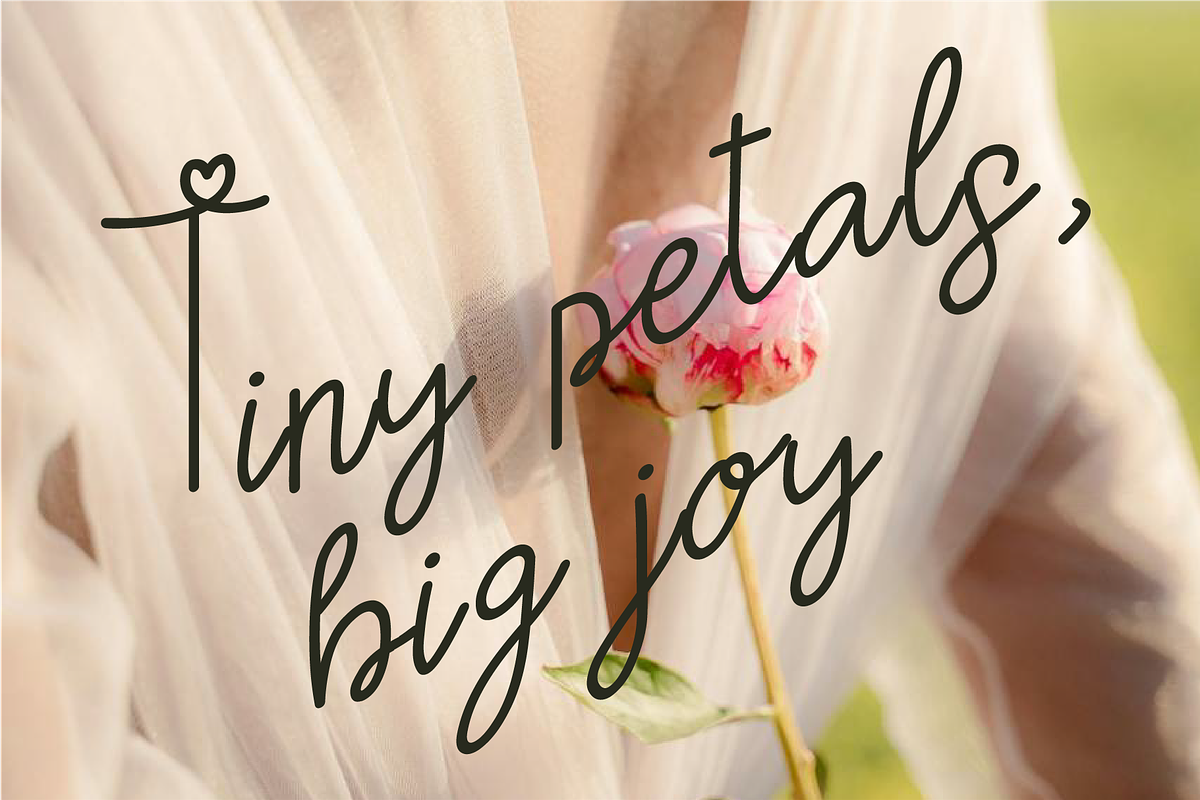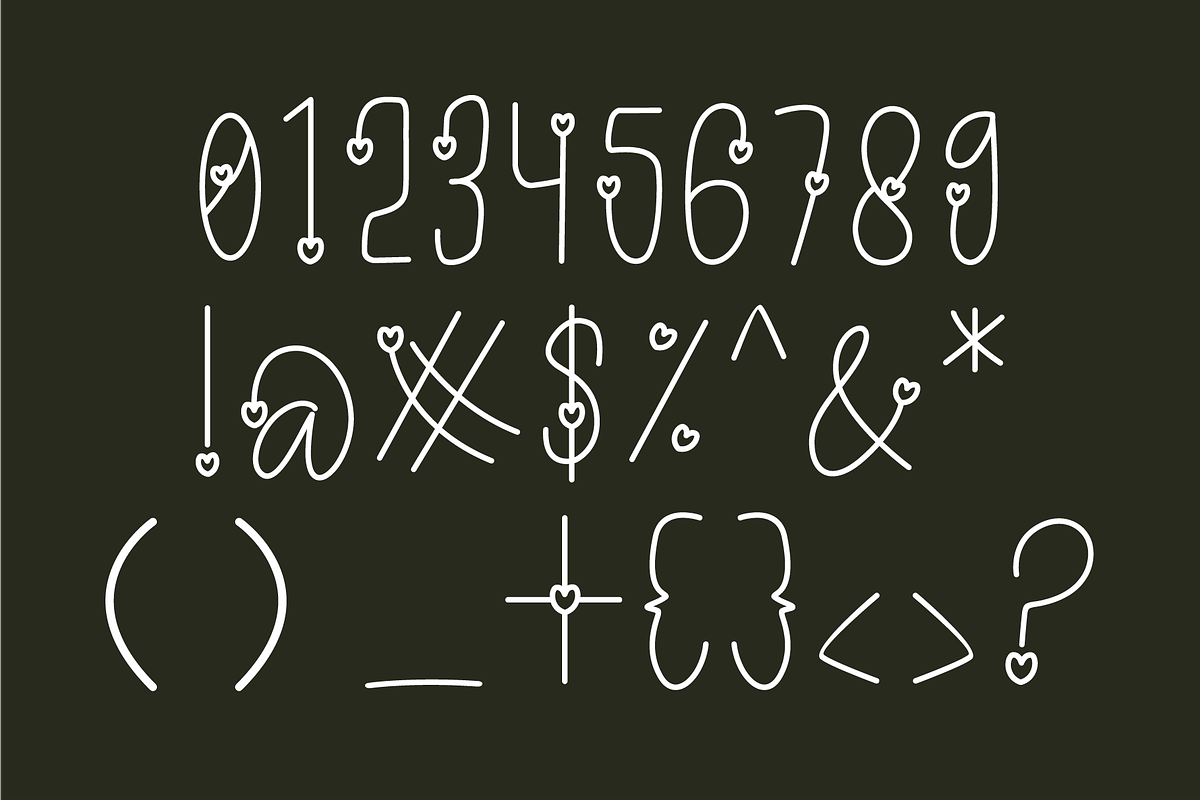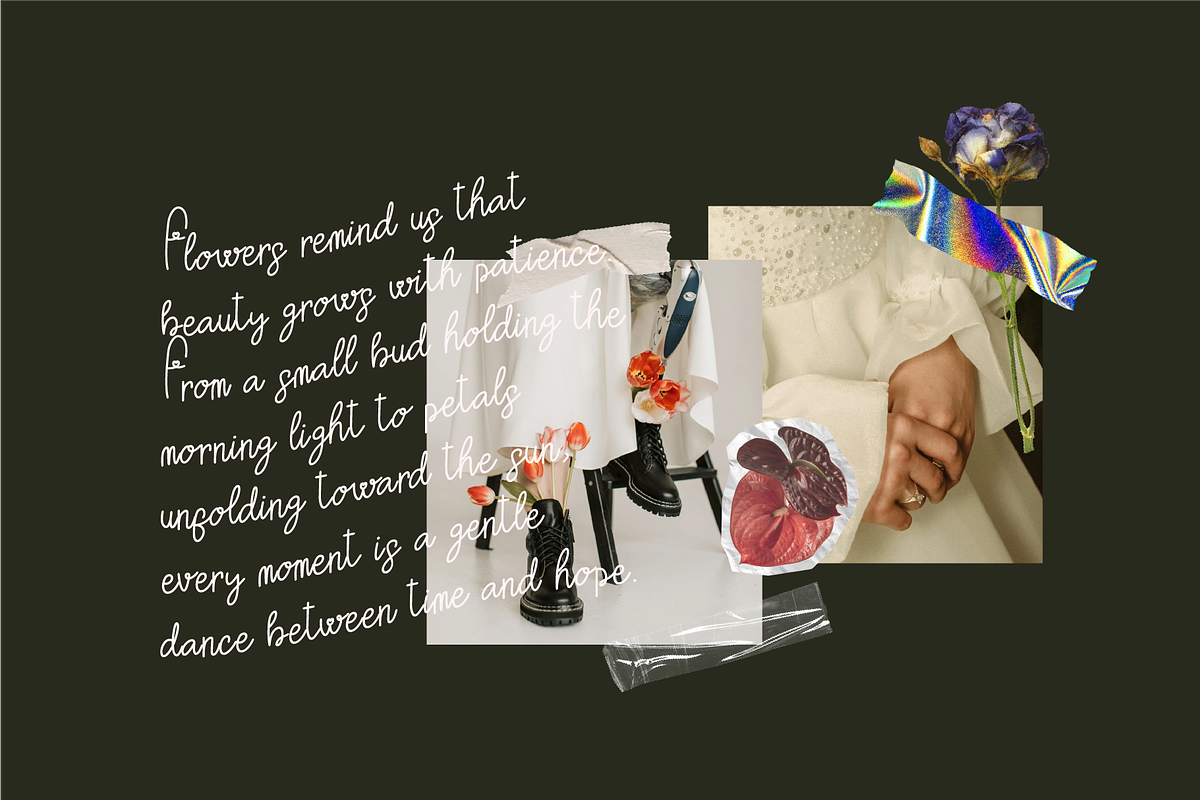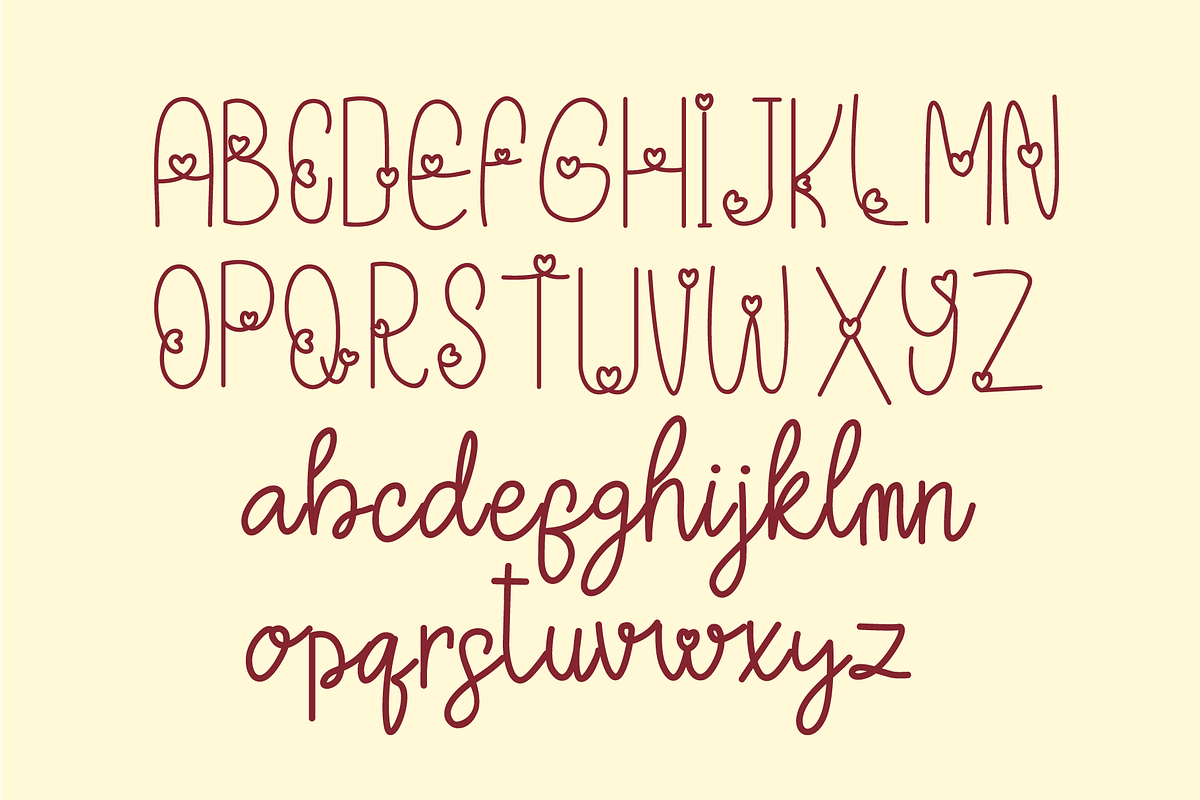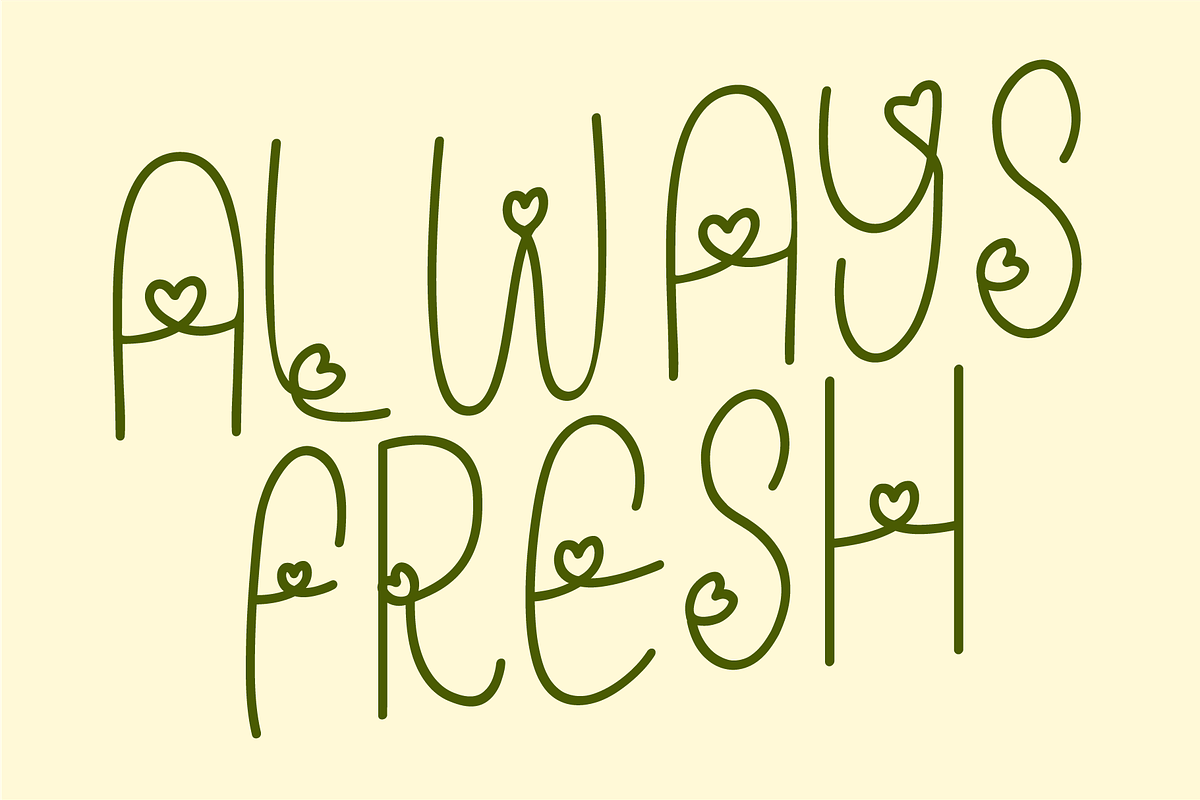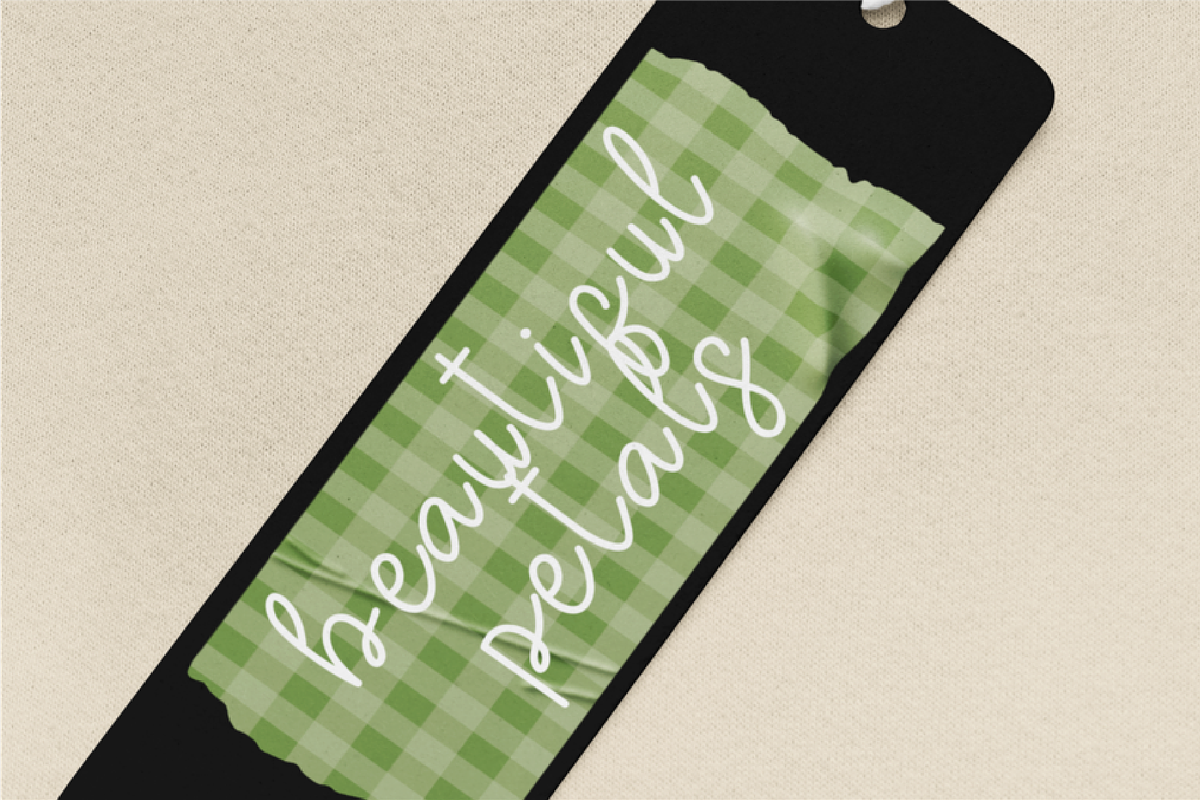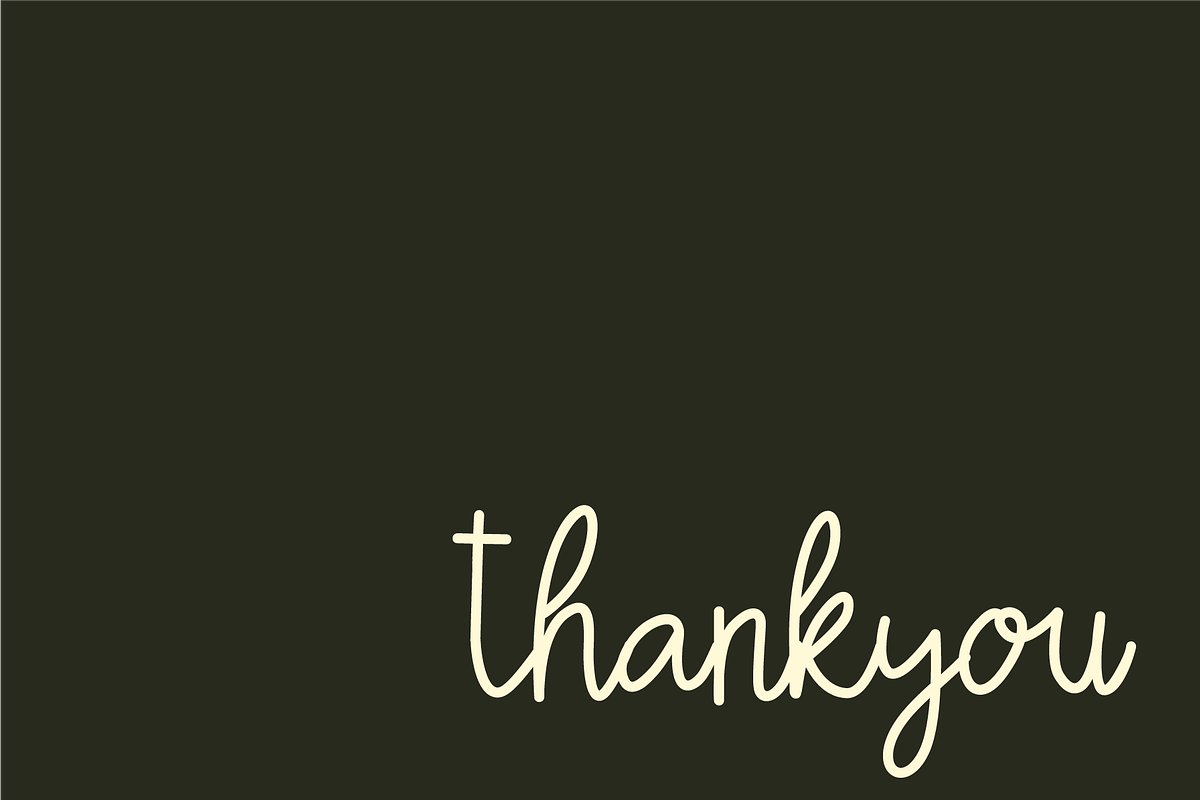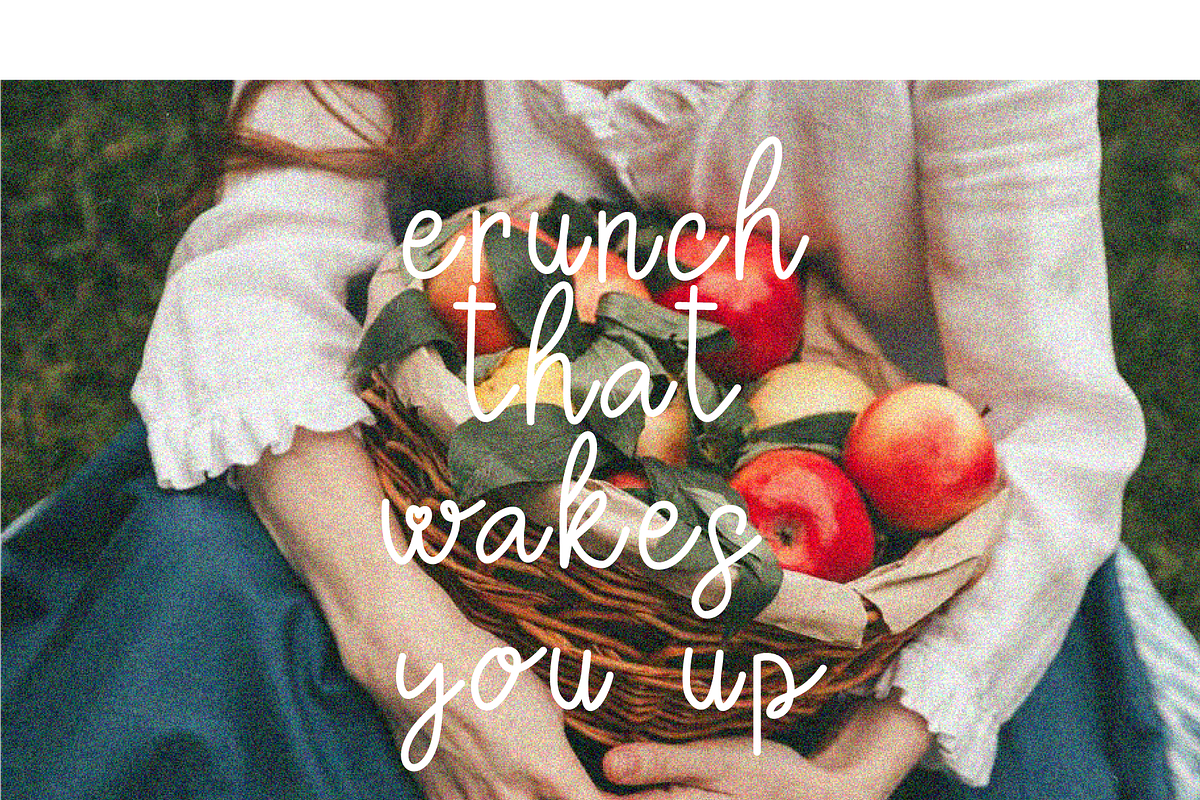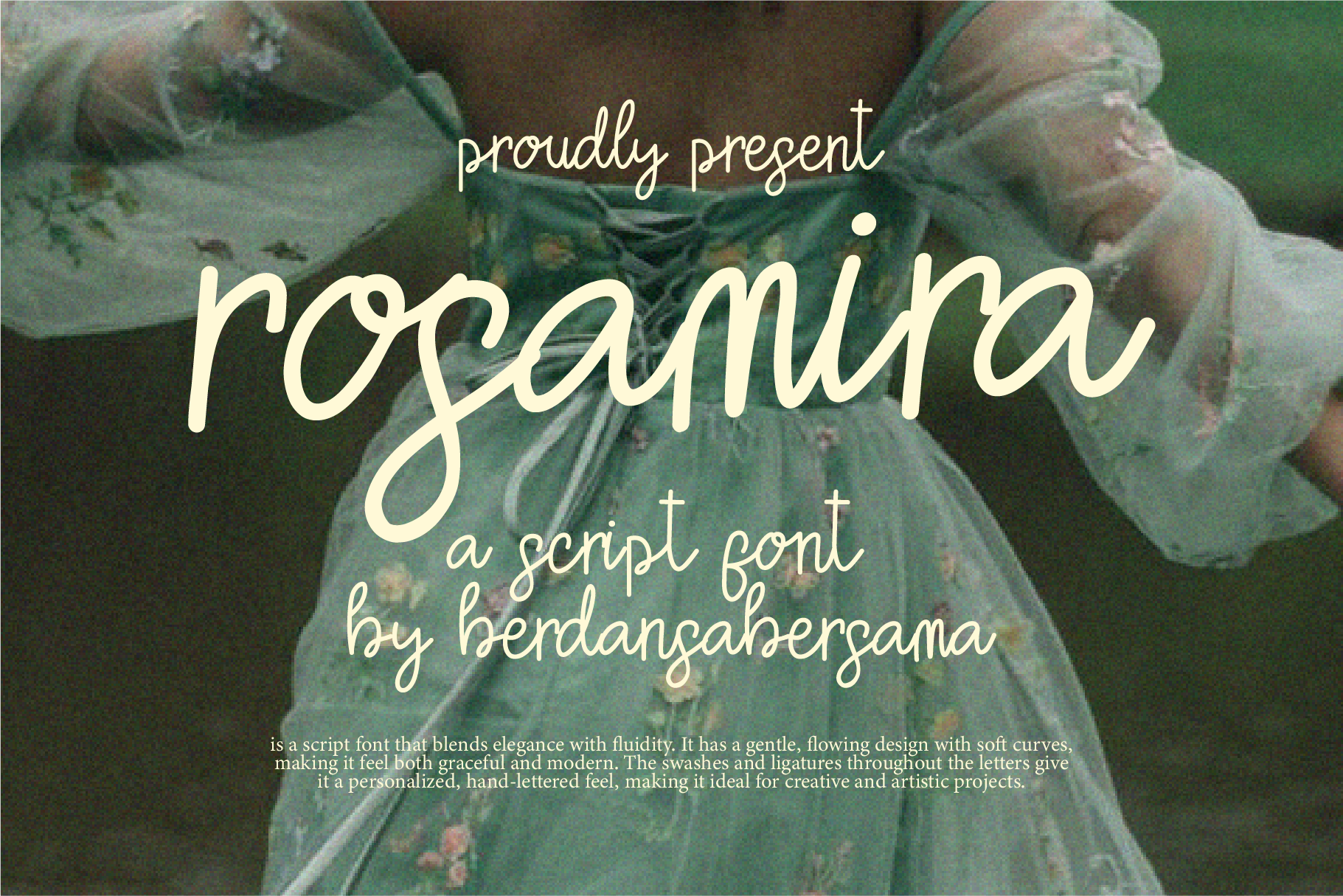
Rosamira a Script Font
Rosamira is a charming handwritten script font that radiates warmth and femininity. Its soft, flowing strokes and natural curves capture the beauty of gentle handwriting, bringing a sense of grace and sincerity to every design.